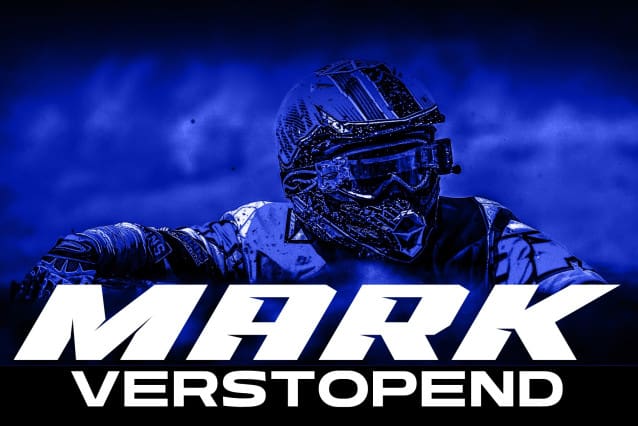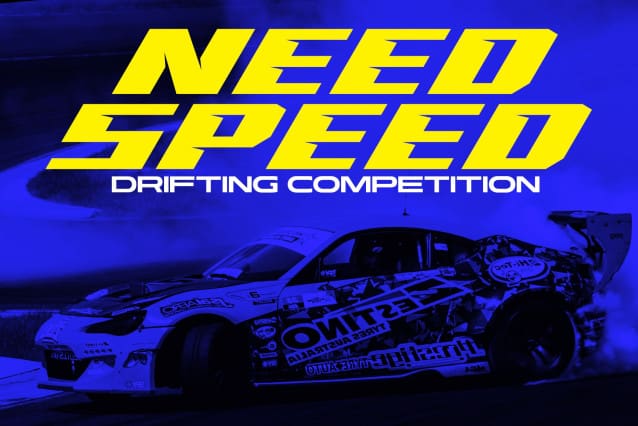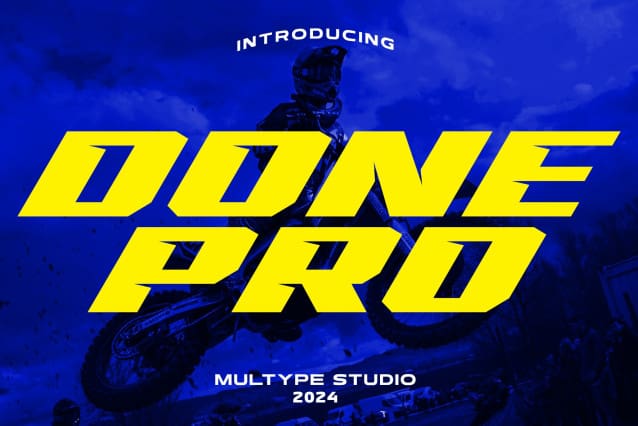
Racing Done Pro Font
Racing Done Pro Font, is a sport theme font. With bold shapes and consistent cutting effects, this font looks strong, consistent and fast.
Racing Done Pro it’s perfect for logotype racing product, racing game covers, sports events, automotive posters, automotive magazine covers, branding, product design, labels and other creative project.